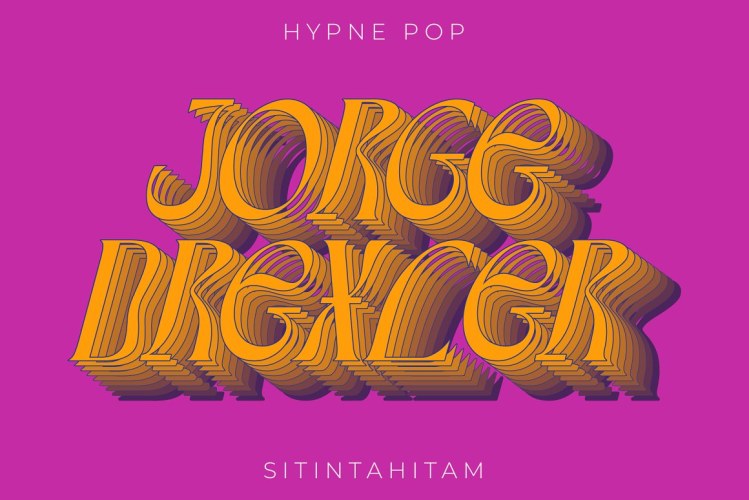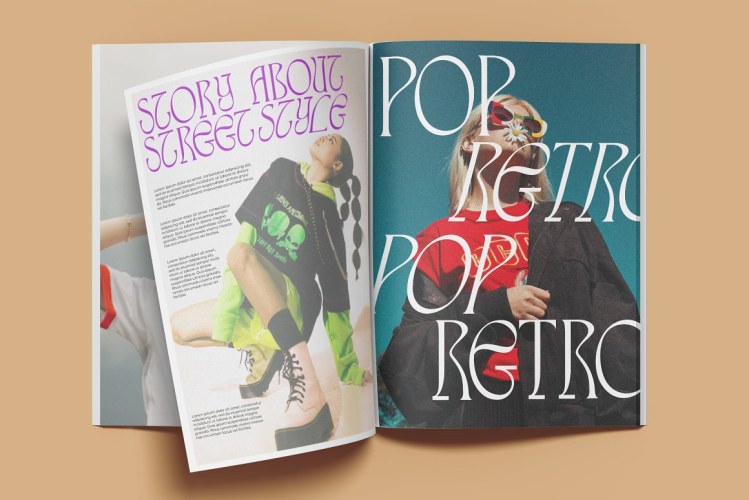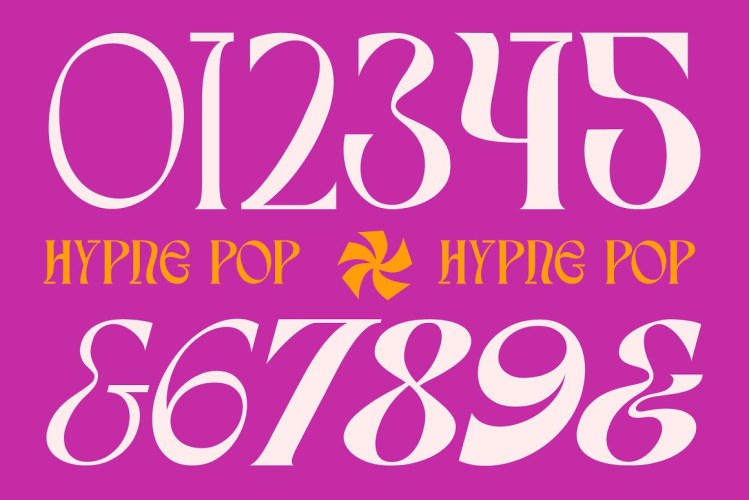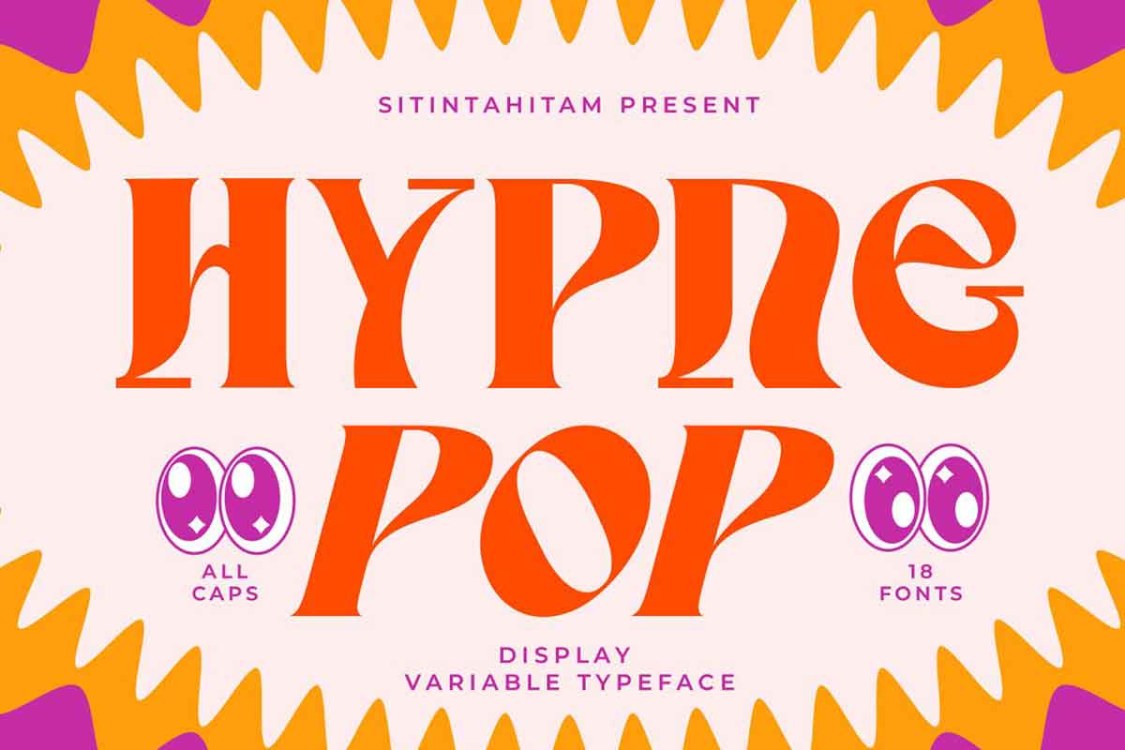
Hypne Pop Display Font
Hypne Pop is inspiring by retro pop culture, groovy, and funky. Hypne Pop comes with 9 weight unique regular and unique slanted style, this font also included Variable F…
Hypne Pop is inspiring by retro pop culture, groovy, and funky. Hypne Pop comes with 9 weight unique regular and unique slanted style, this font also included Variable Font. So you can adjust the size according to the weight of this font according to a certain variable range using software like Adobe. Hypne Pop have a different characters in every style. This font also suitable for making headlines, stickers, T-shirt design, logotypes, poster, magazine, etc.
Where Hypne Pop Display Font works best
Hypne Pop Display Font is built for size: event posters, hero headlines and billboard-style layouts.
High contrast display type like Hypne Pop Display Font reads instantly in thumbnails and motion graphics.
What is Hypne Pop Display Font good for?
Hypne Pop Display Font is a Display Fonts typeface tagged Craft, Display, Display Fonts, Editorial. It works well for headlines, logos, posters, social media graphics and branding projects that need a distinctive display fonts look.